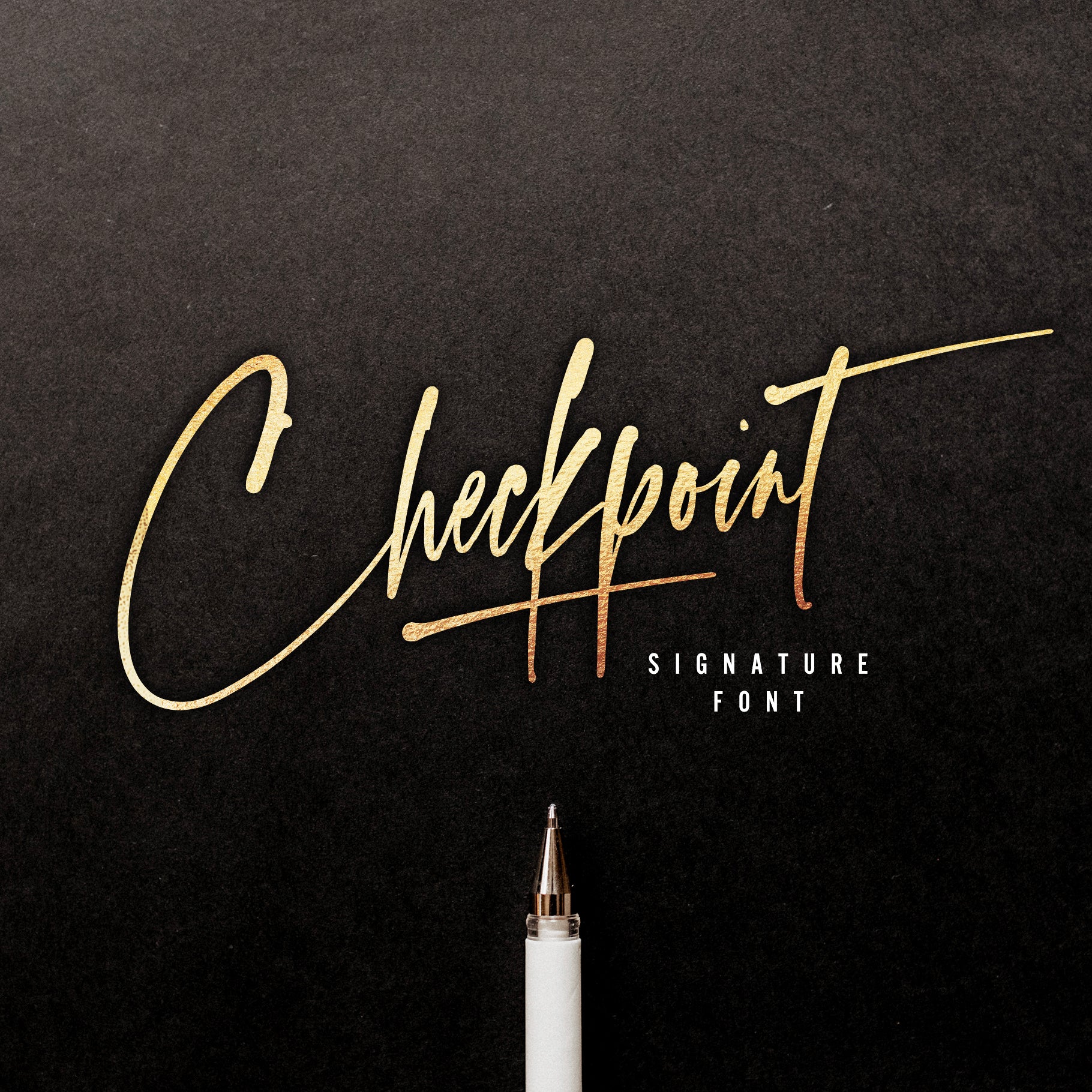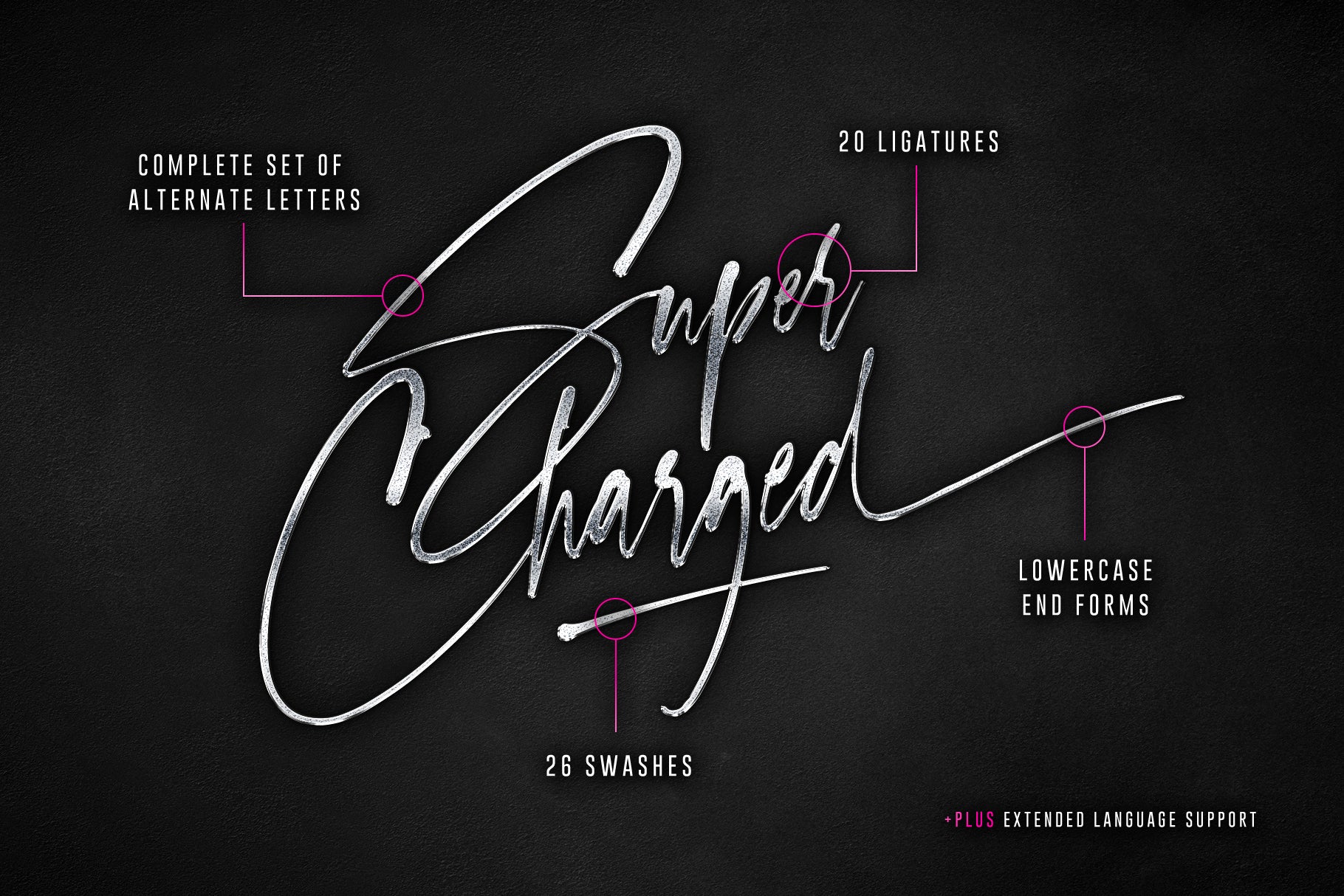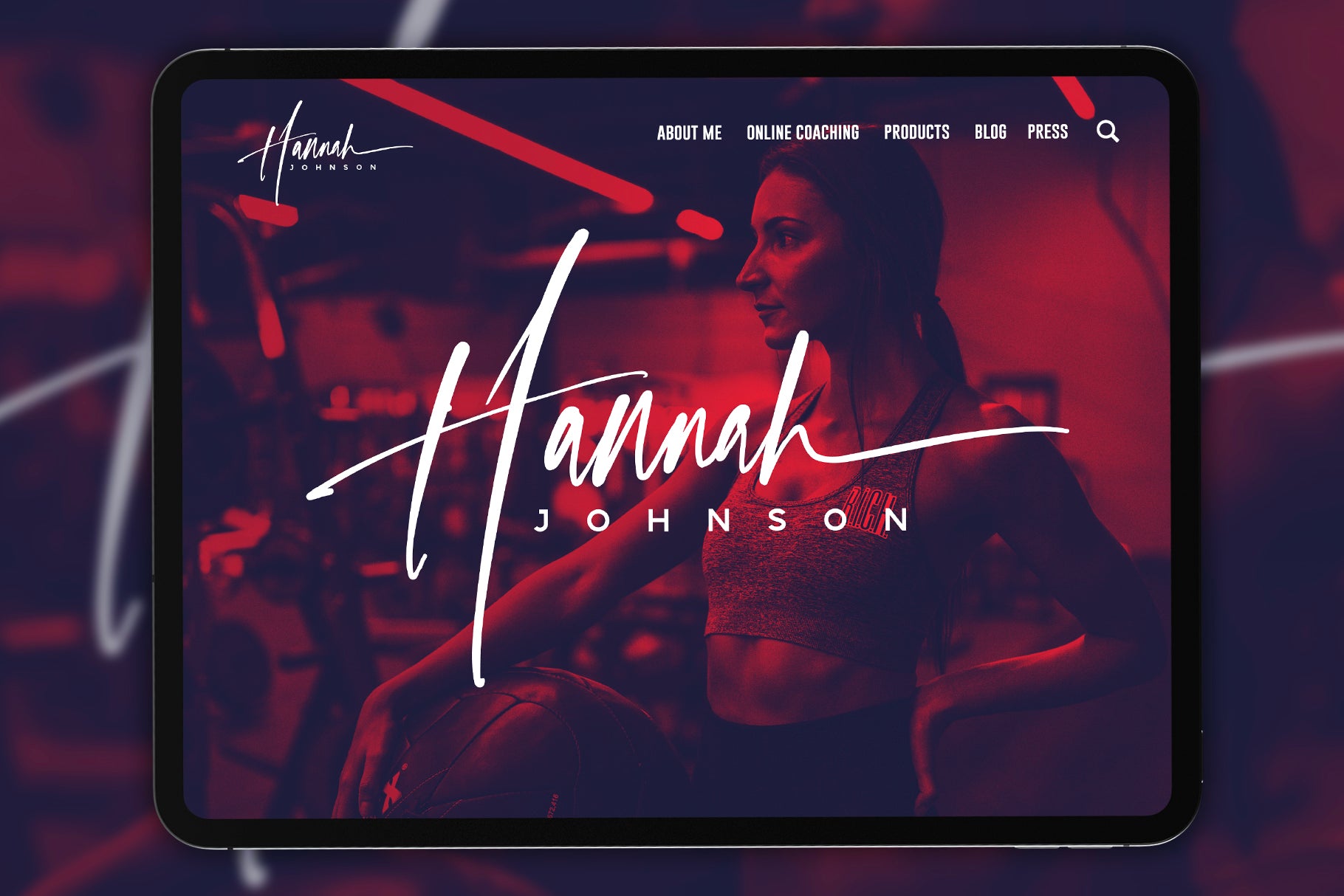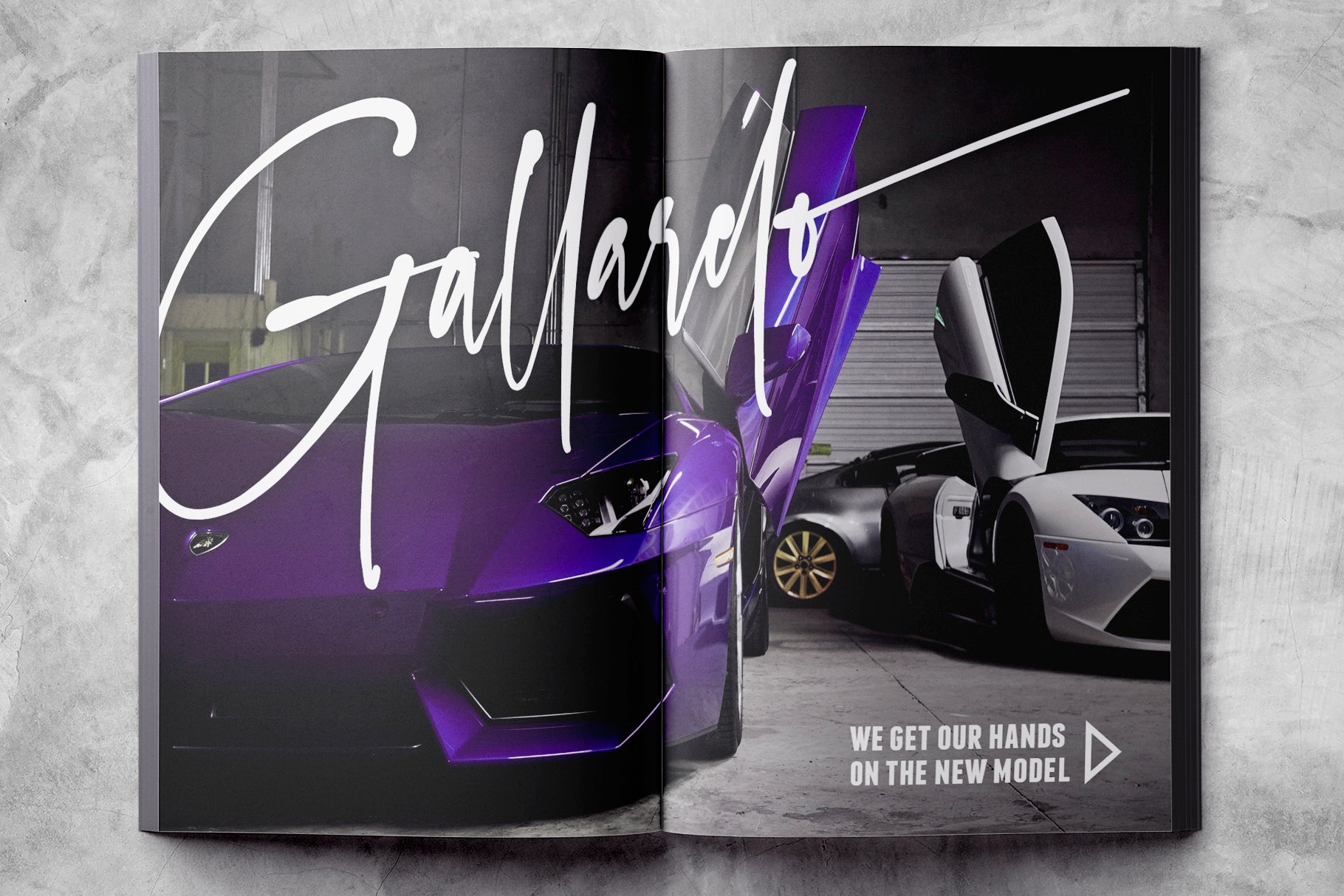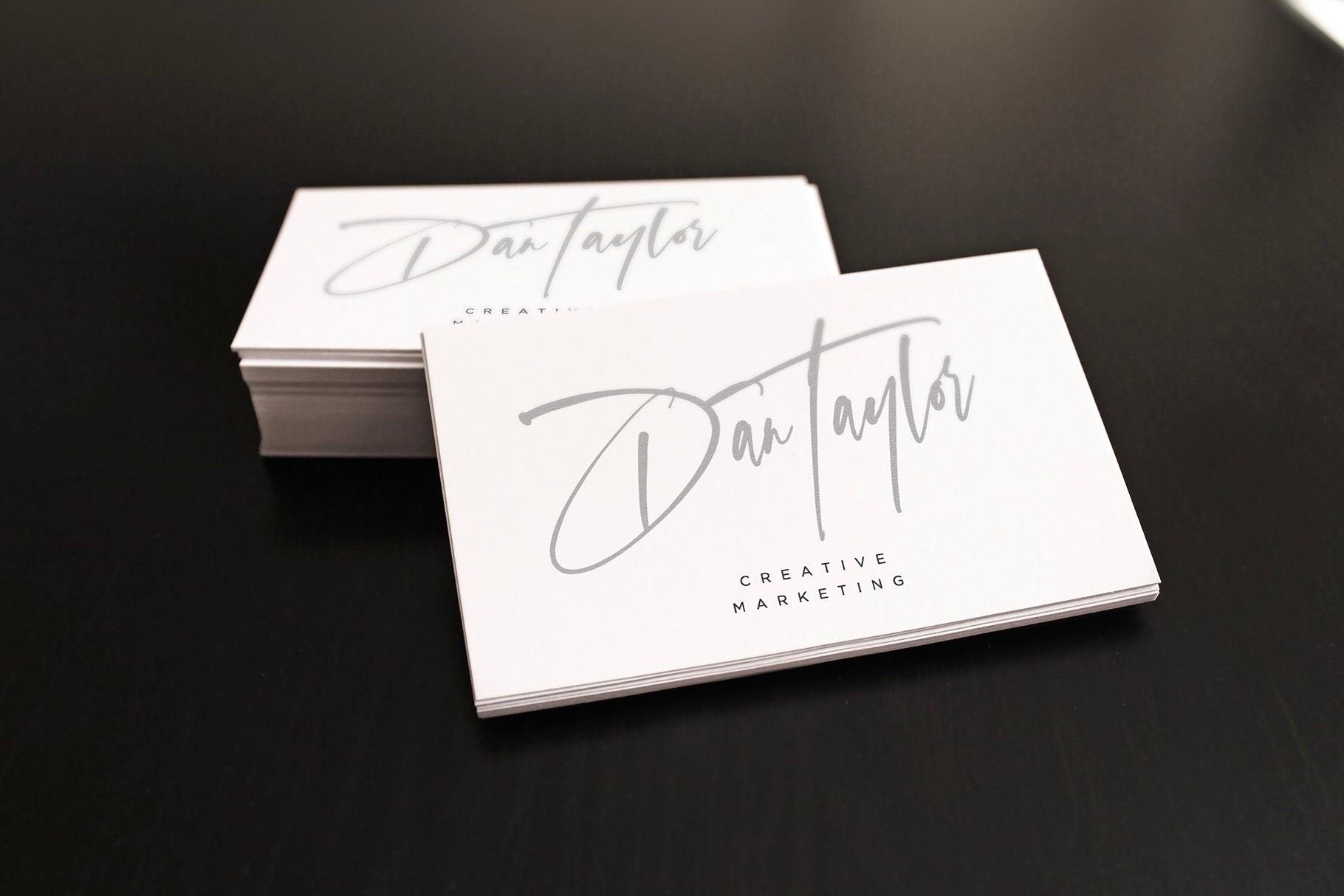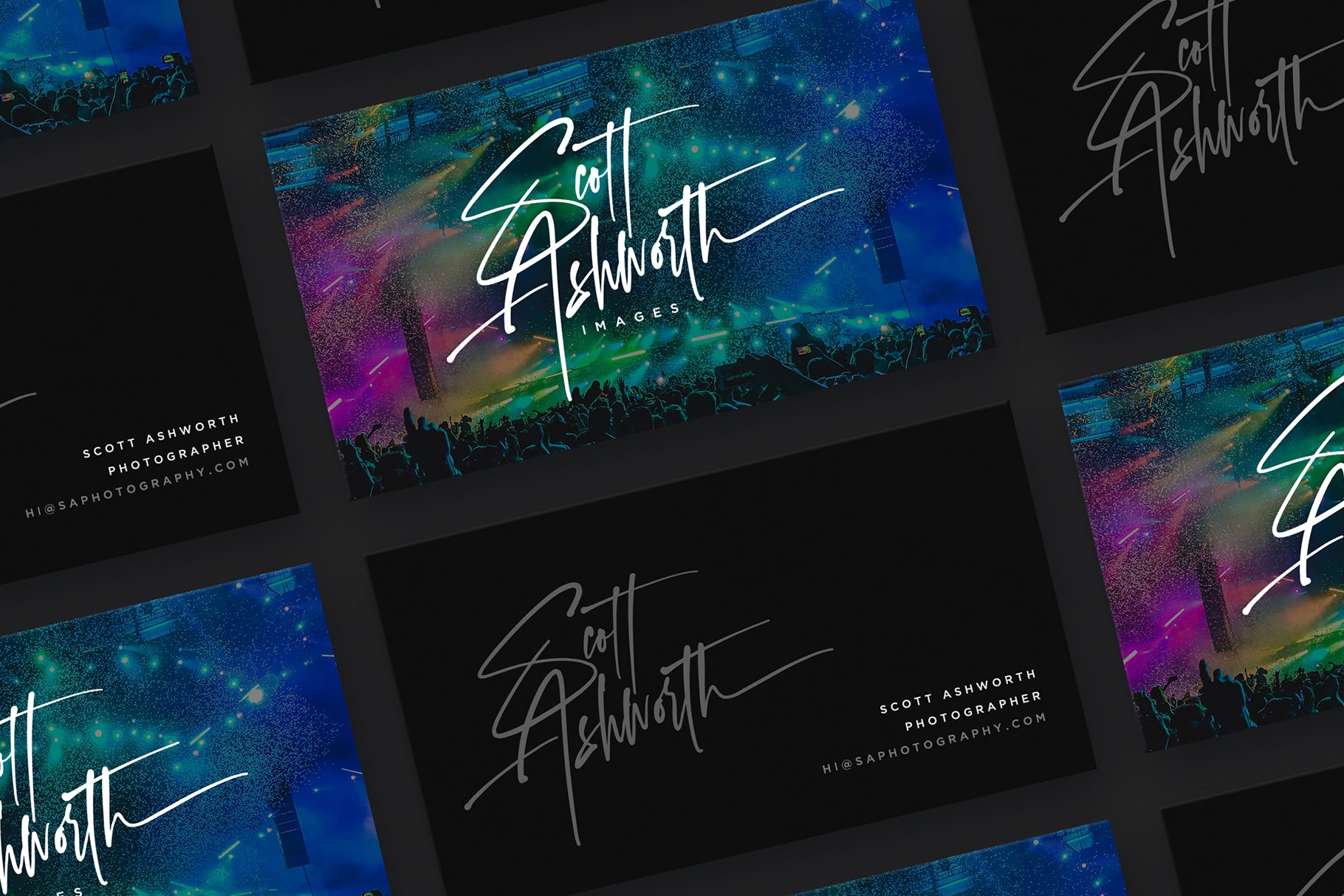
Checkpoint Signature Font
Checkpoint Signature Font is a high-energy, digitally hand-drawn script font featuring upper and lowercase characters, numerals, and a wide range of punctuation. It includes two additional font variations—Checkpoint Signature Alt for alternative character styles and Checkpoint Signature Swash with 26 hand-drawn swashes, along with 20 ligatures for improved lettering flow and stylistic end forms for lowercase characters.